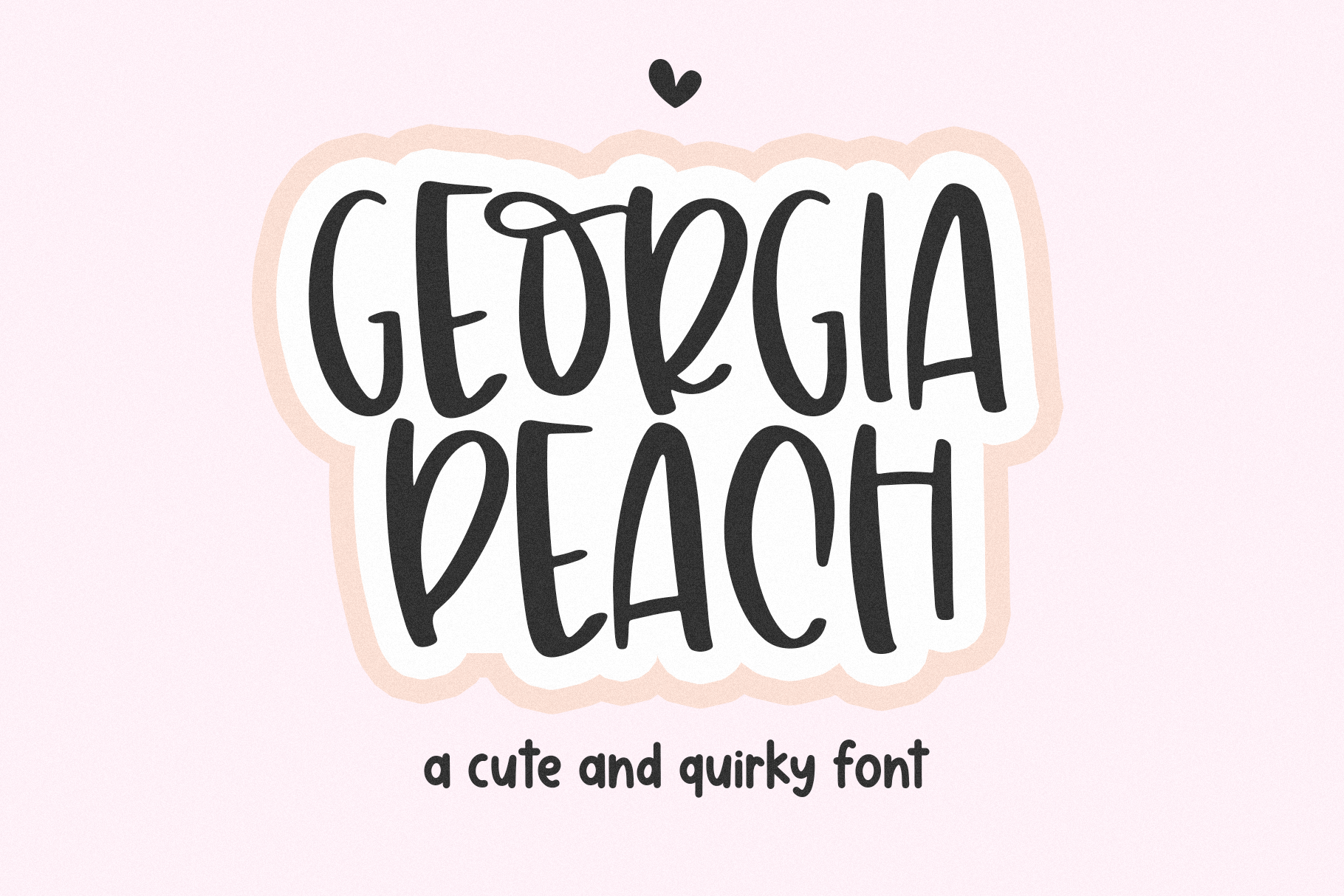
Georgia Peach - Handwritten Font
Georgia Peach is a handwritten font with big, quirky letters. It is an ALL CAPS font.
This font is perfect for quotes, headings, blogs, logos, invitations and more!
This font does include accent characters.